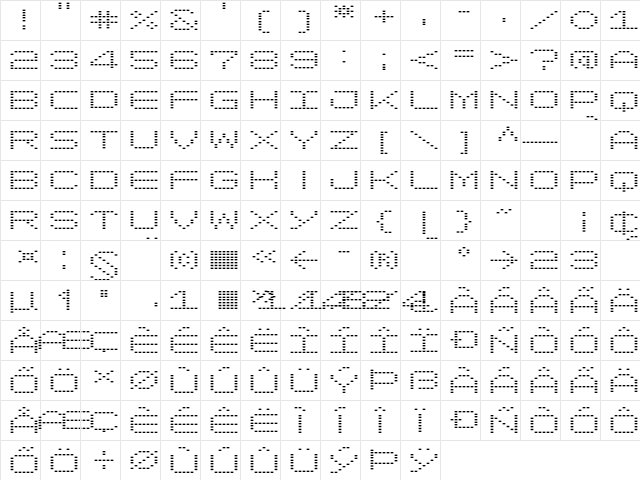
LomoWallDot LT Std 50 Regular Font Preview
LomoWallDot LT Std 50 Regular
LomoWallDot LT Std 50 Regular Font Details
| Foundry | Linotype Library GmbH |
| Designer | Fidel Peugeot |
Design Context for LomoWallDot LT Std 50 Typeface
LomoWallDot LT Std 50 is rooted in pixel-grid construction, making it a natural fit for game UI, retro computing aesthetics, and digital nostalgia projects.
A natural choice for retro game titles, chiptune music branding, 8-bit UI, and digital nostalgia projects.
Pro Tip: Pair LomoWallDot LT Std 50 with flat colour palettes and simple geometric UI elements to reinforce its digital aesthetic.